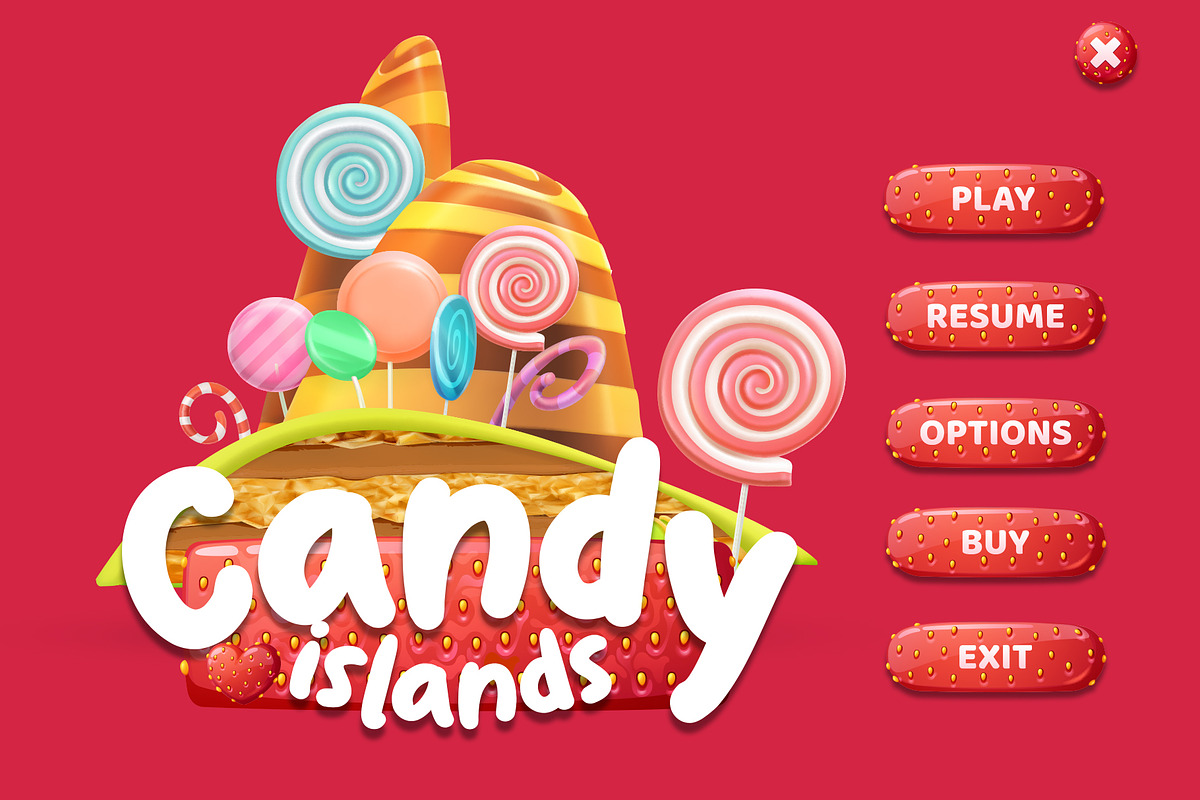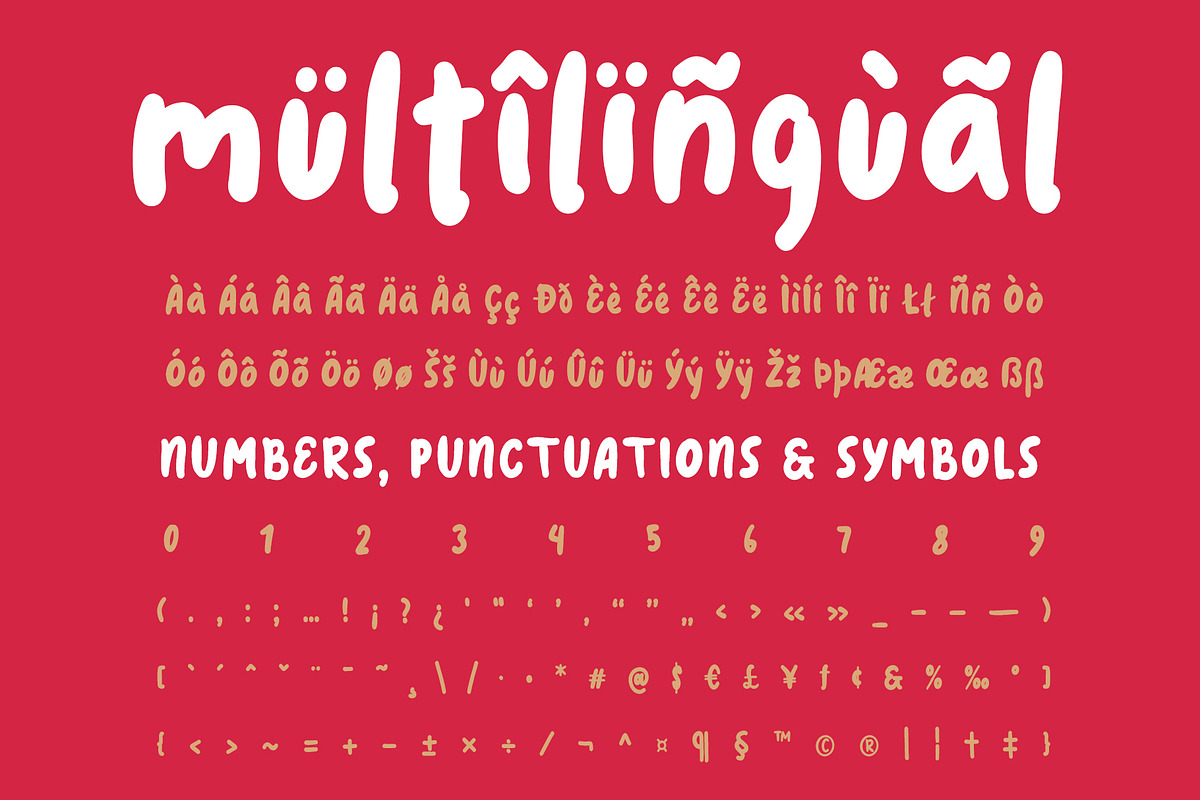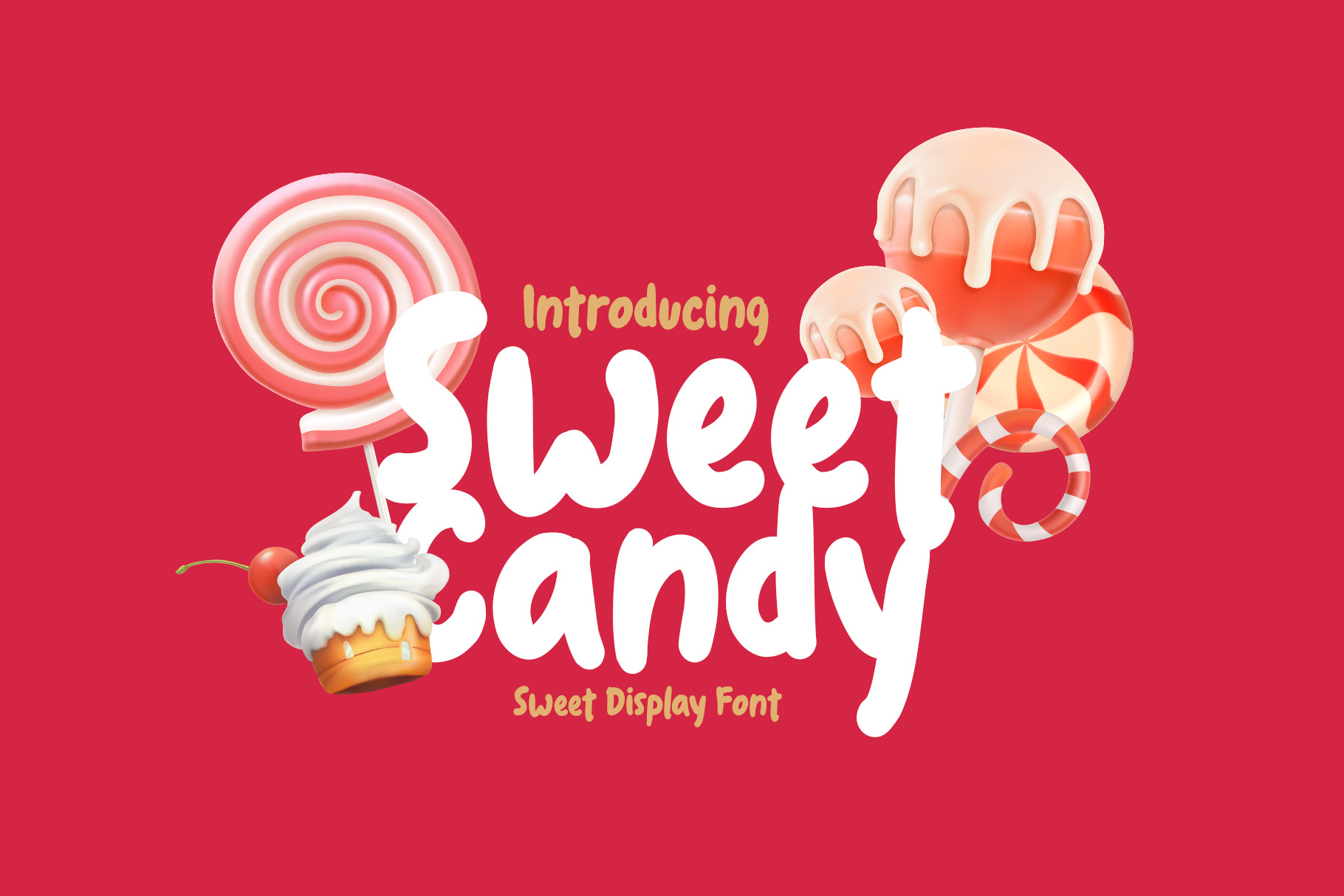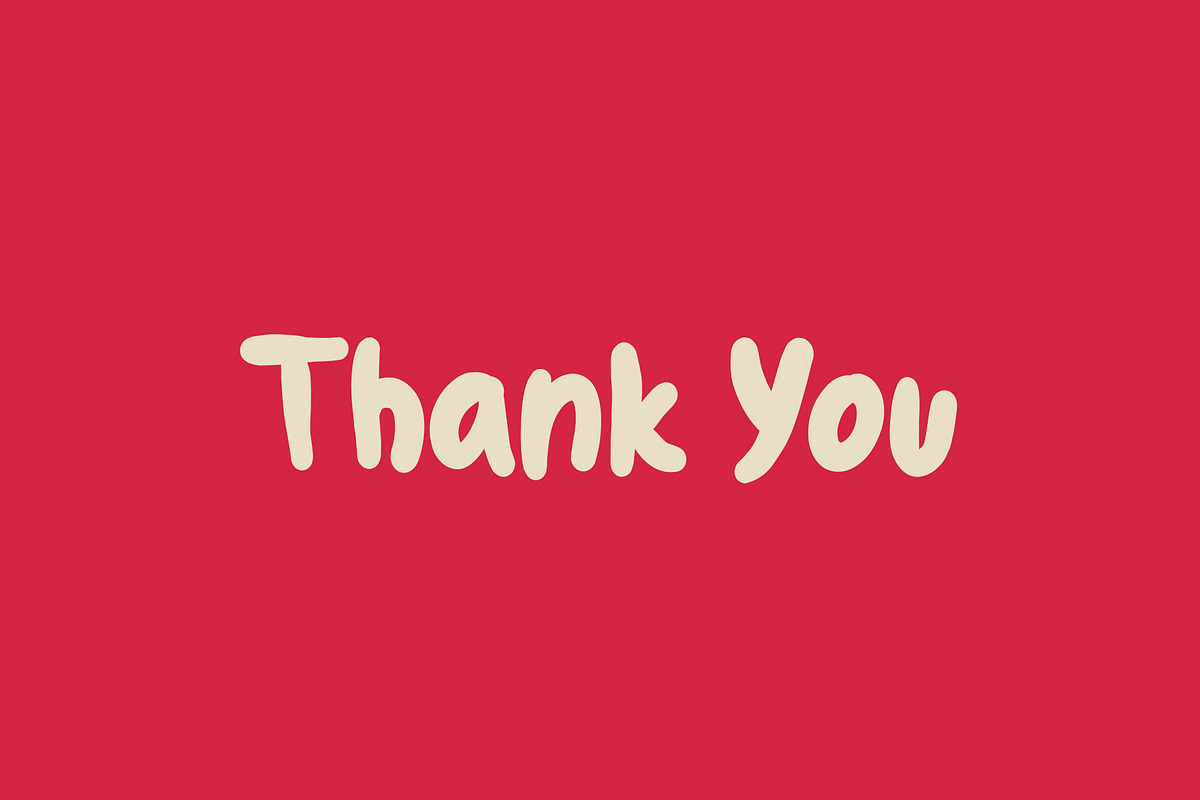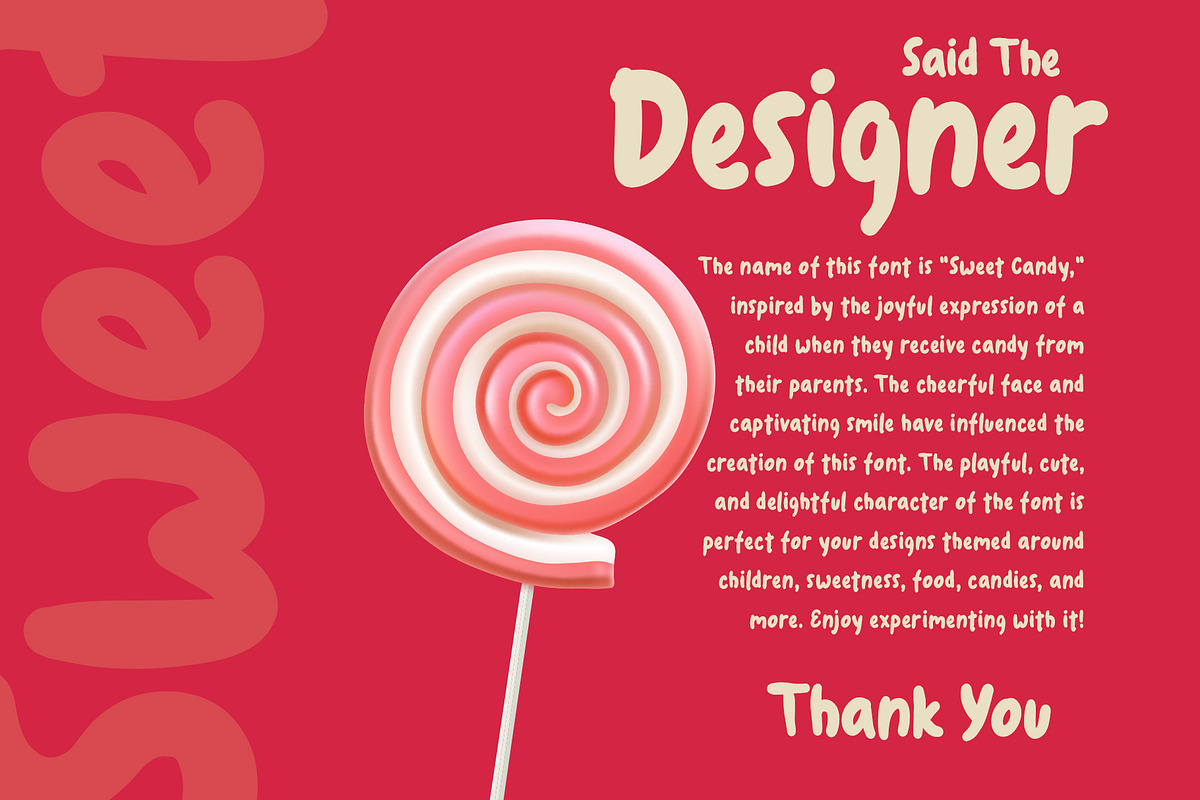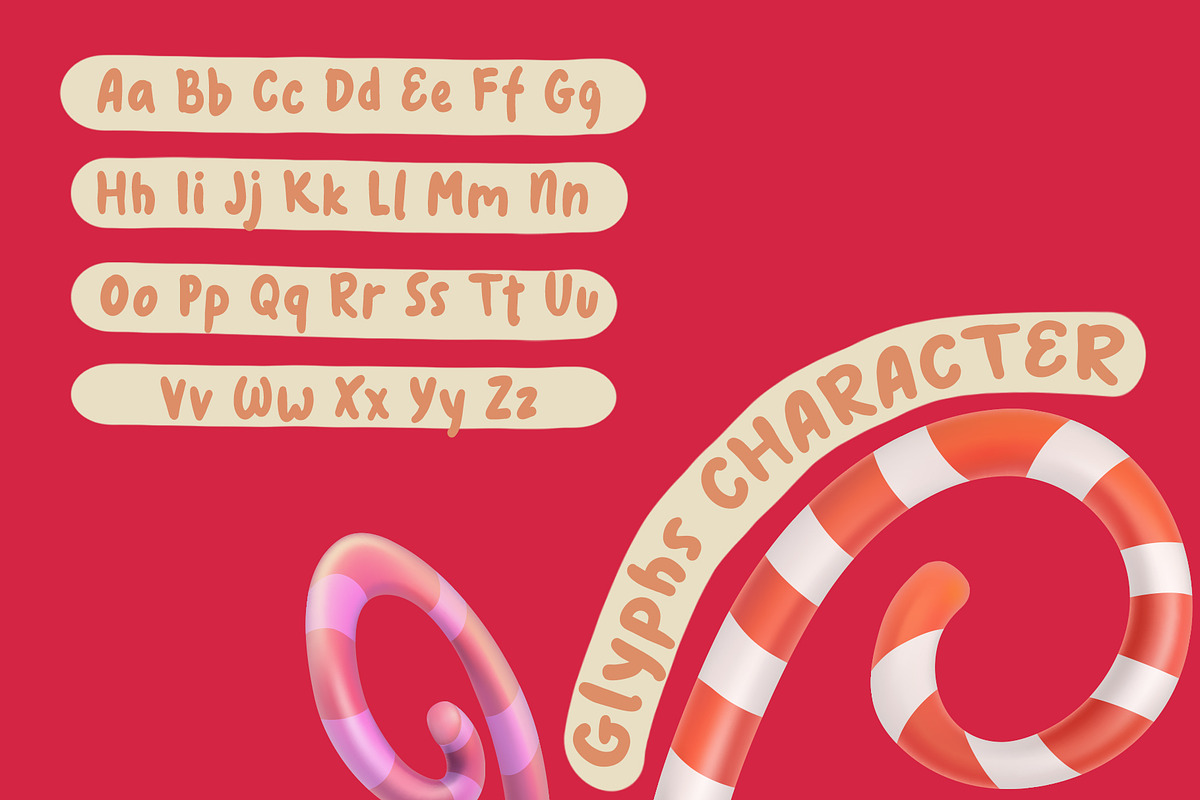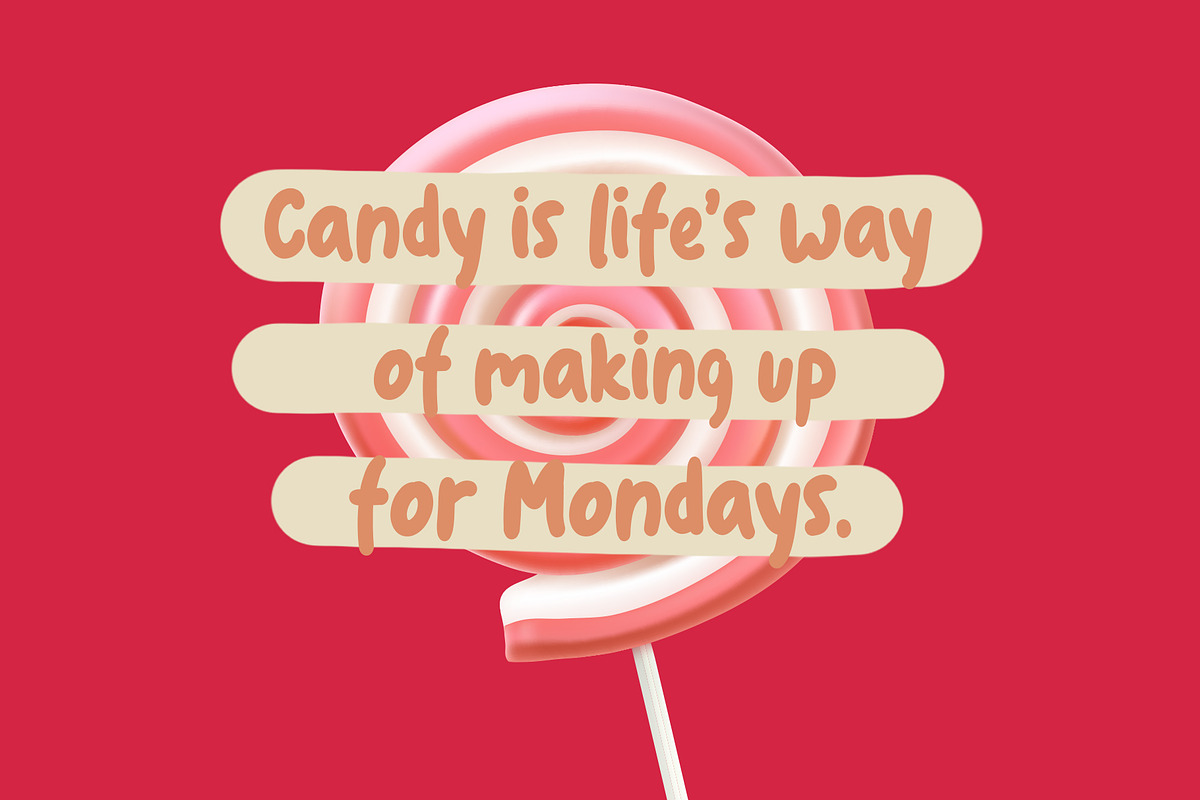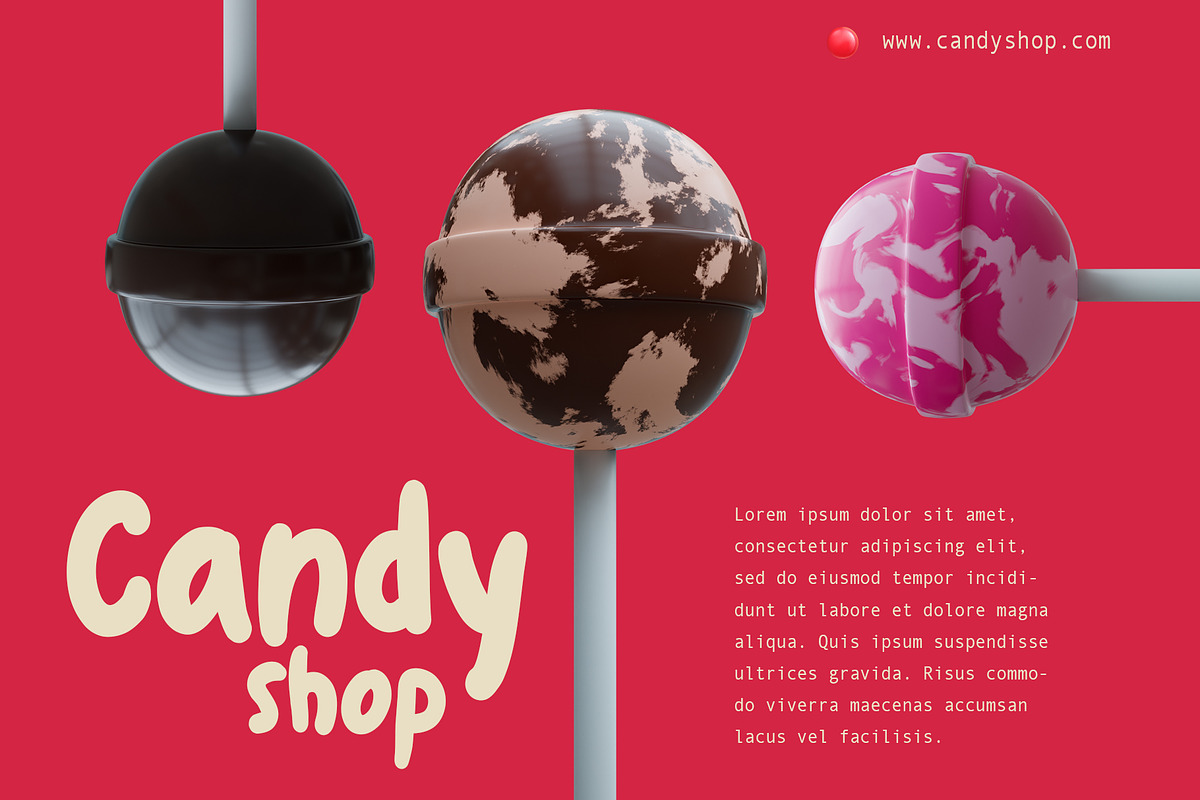
Sweet Candy Display Font
Sweet Candy is a font that embodies the sweetness of candies and joy in design. Created to provide an adorable and delightful look, this font brings a sweet and joyful atmosphere.
The history behind the creation of this font began with our desire to depict the deliciousness and enjoyment of candies. We were inspired by various brightly colored and sweet-tasting candies. We aimed to create a font that brings the cheerfulness and beauty of candies into designs.
Sweet Candy presents each letter and character with cute shapes and smooth curves. Every element in this font is designed to create a sweet and appetizing look. The font gives the impression of biting into a delicious candy and radiates joy from each letter.
The Sweet Candy font is highly suitable for various design projects that aim to showcase a sweet and adorable look. You can use it in greeting cards, posters, food product designs, and more, to add a captivating sweet touch.
So, with the Sweet Candy font, you can express the joy and deliciousness of candies in your designs. The font will provide an adorable and sweet look, creating a joyful atmosphere. Bring a sweet sensation to your designs with the Sweet Candy font.